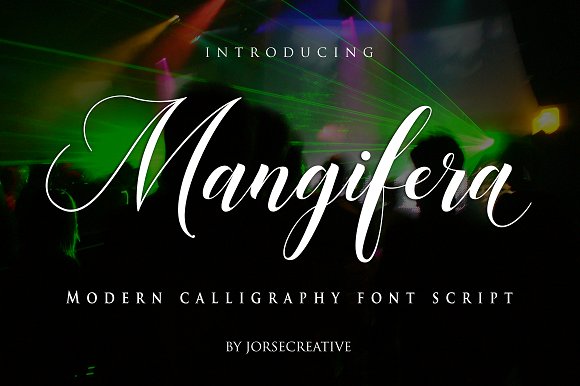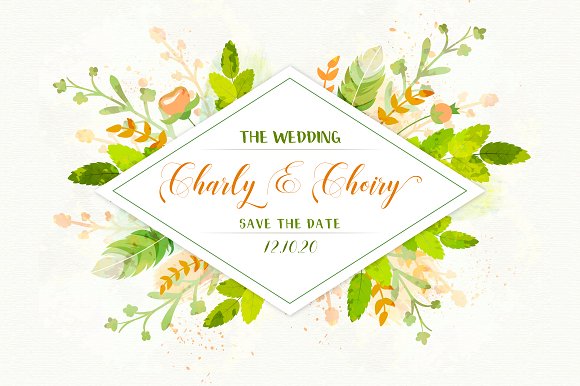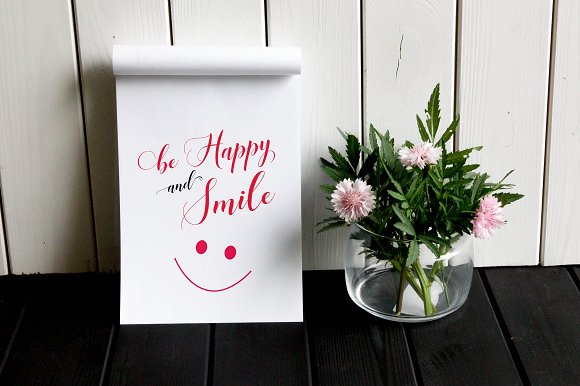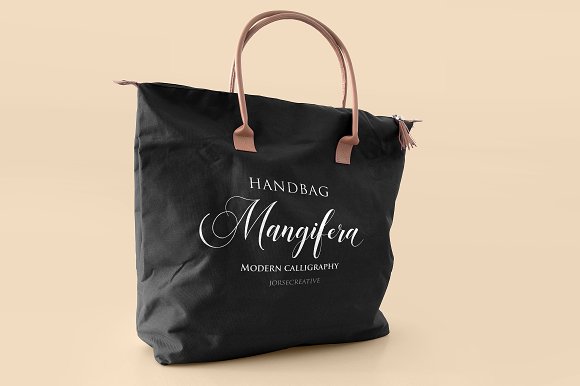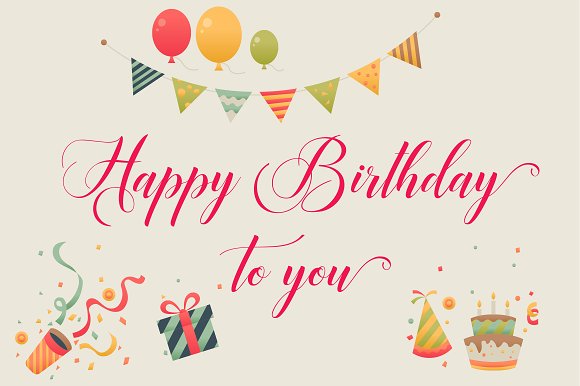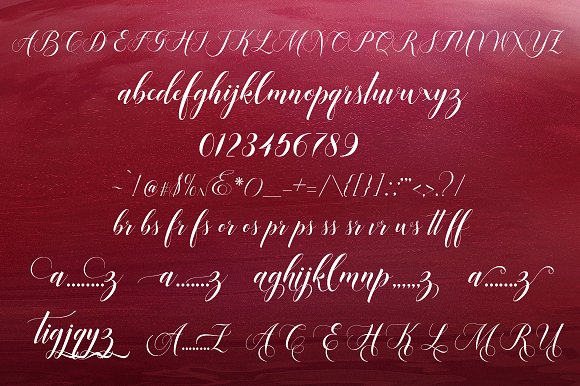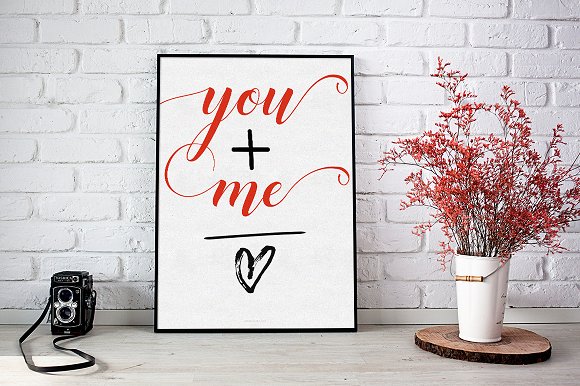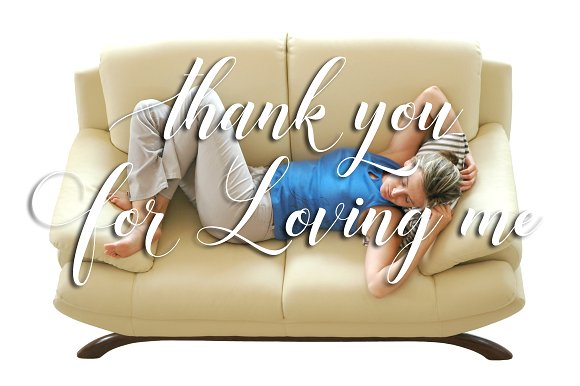
Mangifera Font
About Mangifera Font
Mangifera Script is a beautiful, stylish calligraphy font.
The font has a very smooth varying baseline that make the letters flow on the screen. It’s classic but still has a very elegant touch.